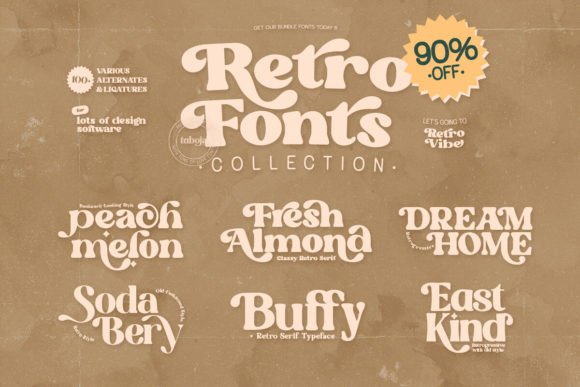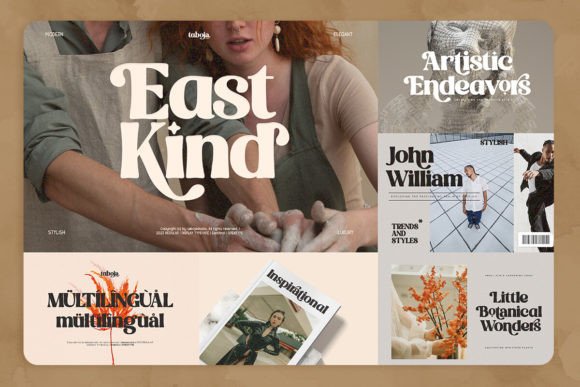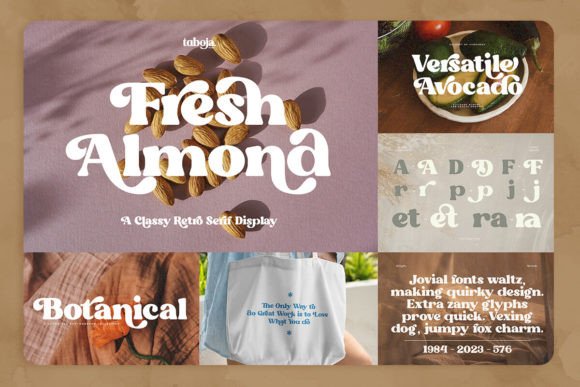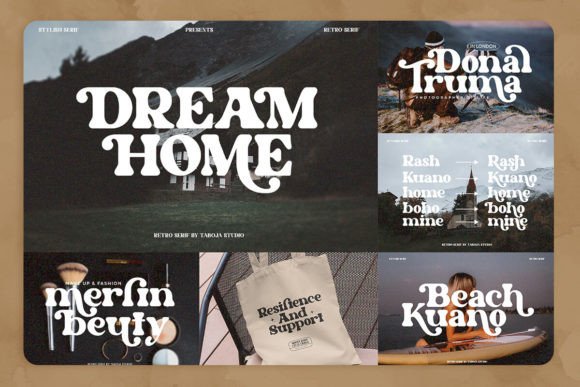
Retro Fonts Collection Font
About the Retro Fonts Collection Font
Introducing the Retro Fonts Collection Font, a beautifully crafted typeface designed to elevate your creative projects. ———————————————–
THE BEST OFFER BUNDLE IN OUR SHOP IS FINALLY HERE! A lot of fonts for your projects are in one place. With this Retro Collection, you can design stylish logotypes for your clients, and create gorgeous branding, logos, blogs, social media, wedding invitations, posters, magazines, and others.
* Fresh Almond Font
* Peach Melon Font
* Dream Home Font
* Buffy Font
* Sodabery Font
* East Kind Font
Retro Fonts Collection Font Usage Examples
Retro Fonts Collection Font Example